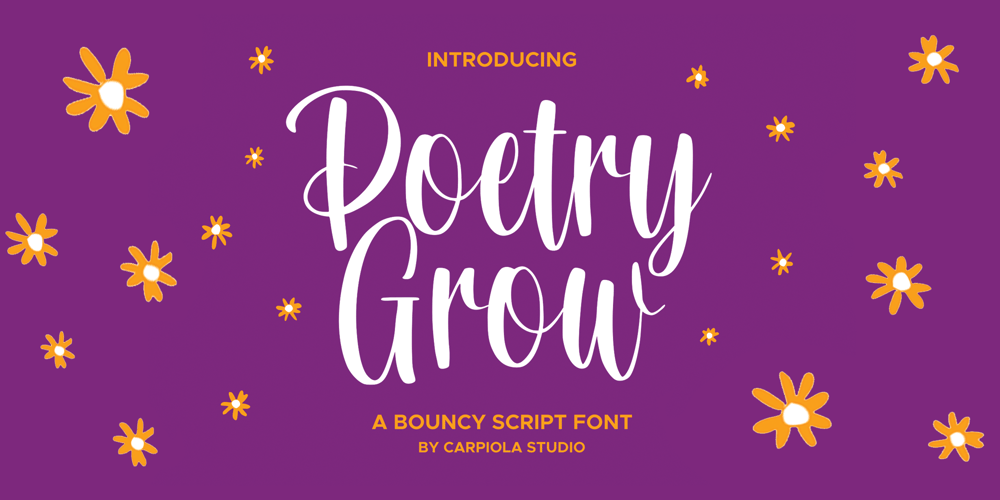
Poetry Grow
Poetry Grow font
Poetry Grow Font Family was designed by Tegar Hafizhal, Robby Hermawan and published by Carpiola Studio. Poetry Grow contains 1 styles and family package options. Poetry Grow is a bouncy and timeless handwritten font. It is the best choice for creating eye-catching logos, branding, and quotes. Every letter adds a unique and beautiful touch to your design, making it come alive with a classy and elegant look.